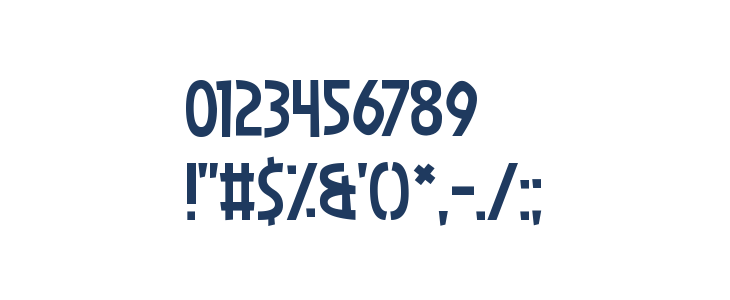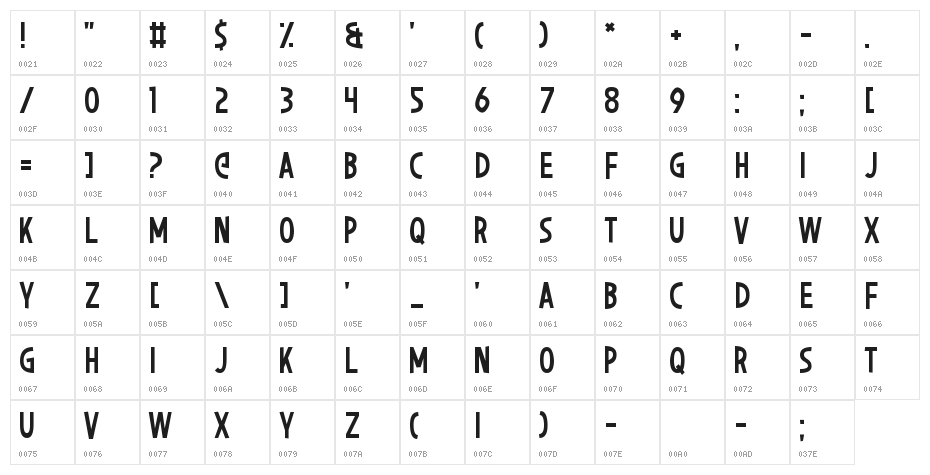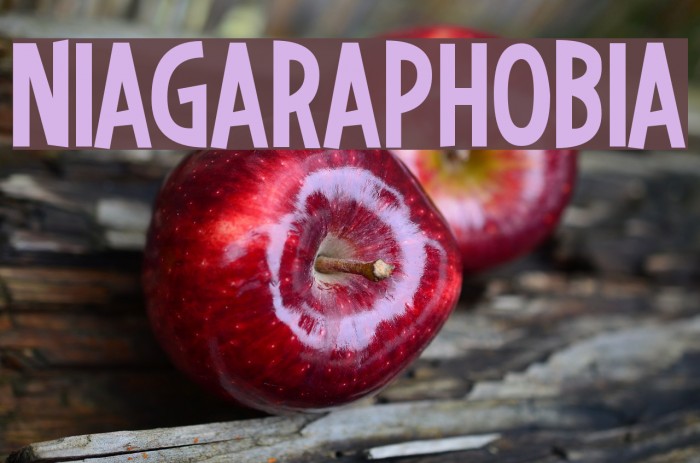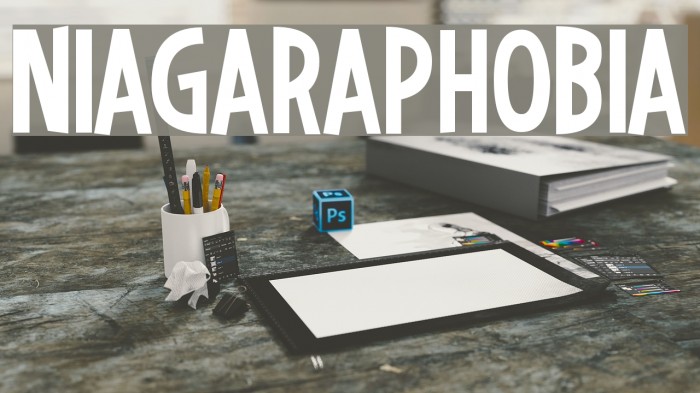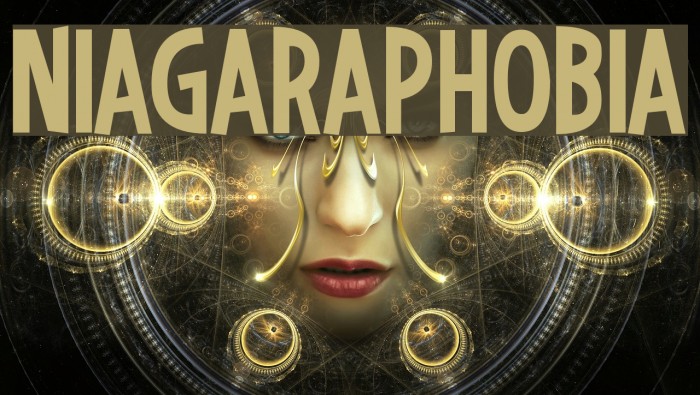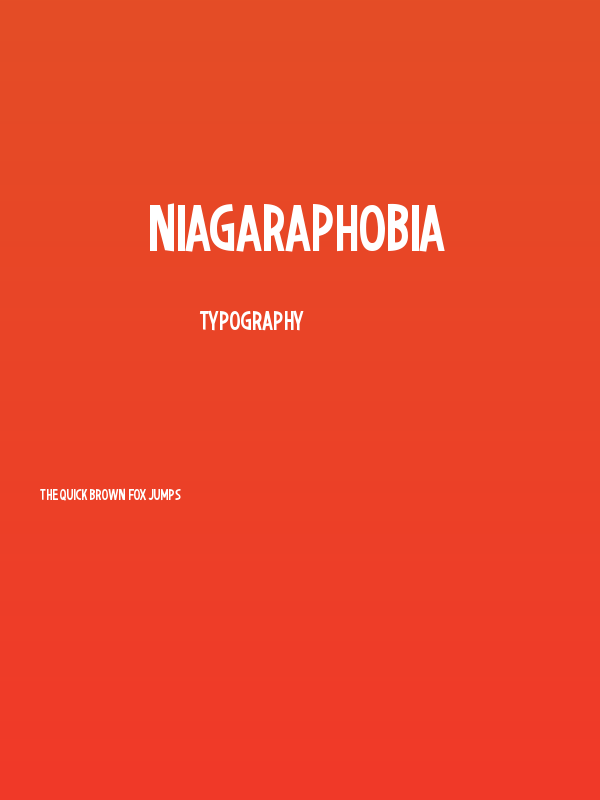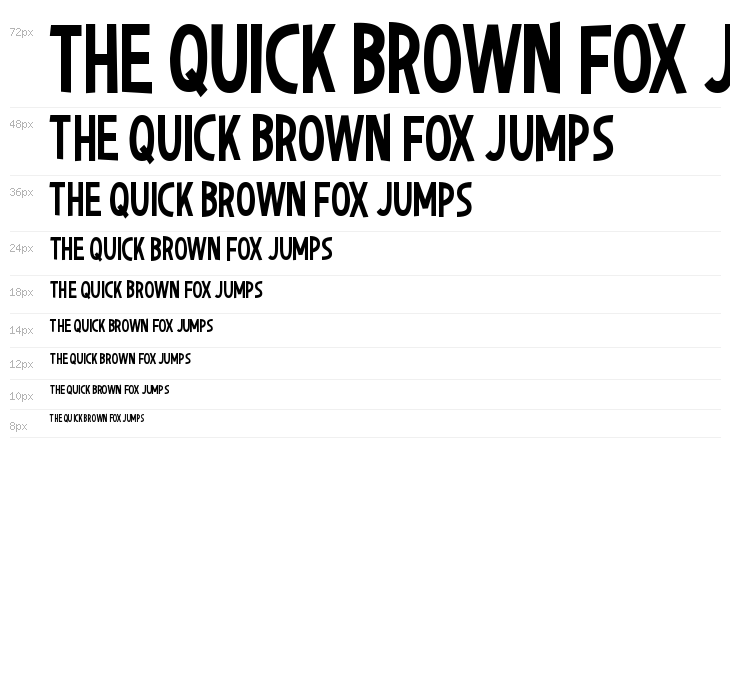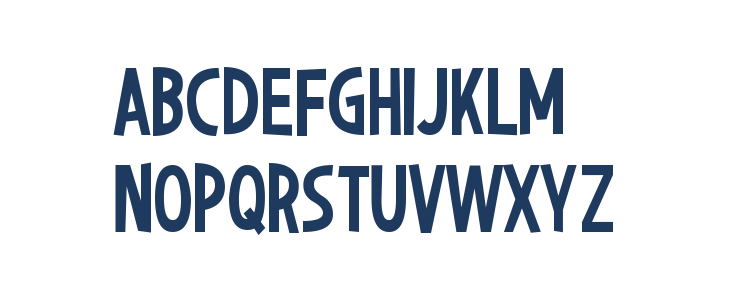
Niagaraphobia Font
Niagaraphobia Description
This font features a bold and striking appearance with a strong geometric influence. The characters are uniformly thick, providing a sense of stability and strength. The uppercase letters are tall and commanding, while the lowercase letters maintain a consistent height, contributing to a cohesive and balanced look. The numerals are clear and easily distinguishable, making them suitable for various applications. Special characters are designed with the same boldness, ensuring they stand out. The overall style is modern and impactful, making it ideal for attention-grabbing designs.
| Proposed Projects | Ideal for headlines, posters, branding materials, and any project requiring a strong visual impact. |